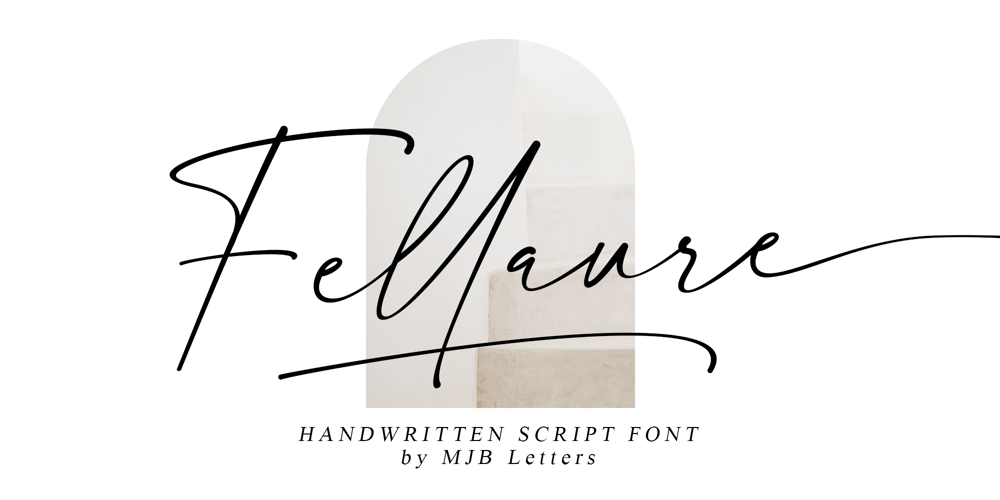
Fellaure Font Family was designed by Muhammad Mujibulloh and published by MJB Letters. Fellaure contains 1 styles and family package options. Fellaure is a modern authentic handwritten script, this font has a strong character in each letter that makes the font looks suitable for branding design, packaging, wedding design, logo design, poster design, signature, stationery design, and more.Fellaure comes with beautiful ligature, multilingual support, and additional underline swashes.